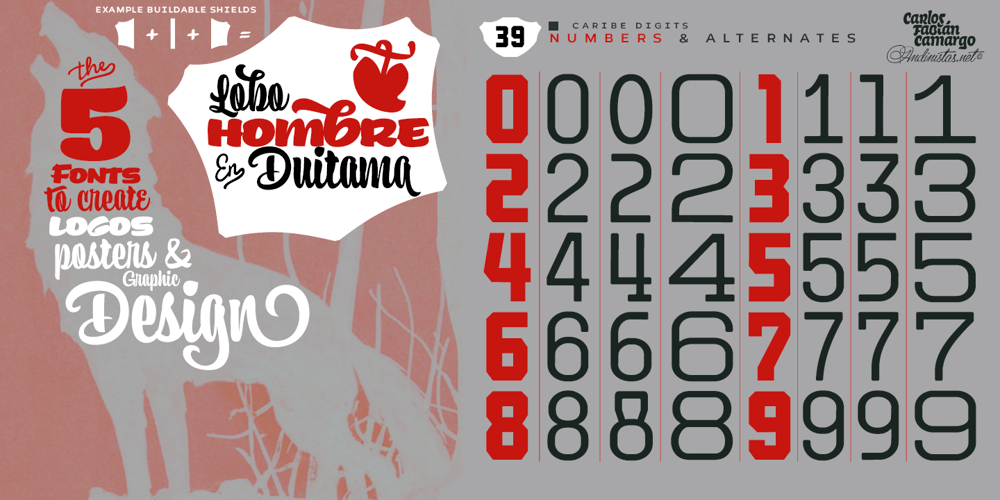
Caribe
Caribe font
Caribe Font Family was designed by Carlos Fabián Camargo Guerrero and published by Andinistas. Caribe contains 5 styles and family package options. Caribe is an expressive typefamily like the blue sky and bright Caribbean sun, designed by CFCG @andinistas. We love to design experimental fonts with a large amount of ligatures and swashes, drawn with special respect and study for what is handmade by ancient artisans. In this context, Caribe is an impressive typefamily of 5 fonts to create logos, posters, book covers, menus, labels, packaging, etc. The 5 Caribbean fonts add up to more than 1500 glyphs that serve to be mixed or independent, functioning as a springboard to encourage your creativity in the design of words, phrases or remarkable headlines of the elements that appear around them.Caribe Script has lowercase letters such as “b d f g h i j k l p q y z” with extremely short ascending and descending strokes achieving generous height x in: “a c e m n o r s u v w x”. Caribe Script Produces visual attraction in words and phrases that need lowercase letters with sparing horizontal space width and bold stroke thickness, producing exceptional legibility in headlines or advertising texts.Caribe Script & Caps are based on ancient and multiple letterings from the 40s and 50s that were useful inspiration tools to produce visual pleasure. Caribe Words has more than 60 script words drawn diagonally generating greater intensity within a sentence.Caribe Shields & Digits has more than 50 designs each and they have containers and numbers designed to accompany words, phrases or drawings that serve to harmonize different writings.ENJOY more than 1500 glyphs: + Caribe Script: 743 glyphs+ Caribe Caps: 507 glyphs+ Caribe Words: 71 glyphs+ Caribe Shields: 230 glyphs+ Caribe Digits: 40 glyphs